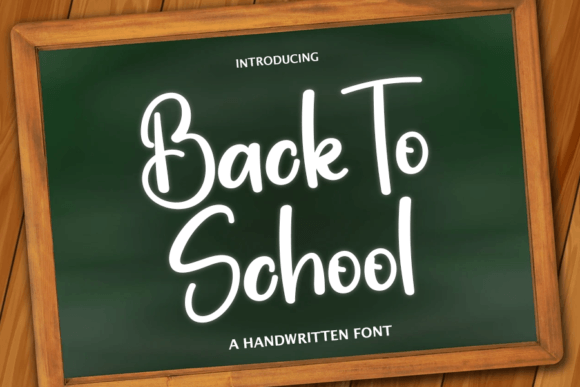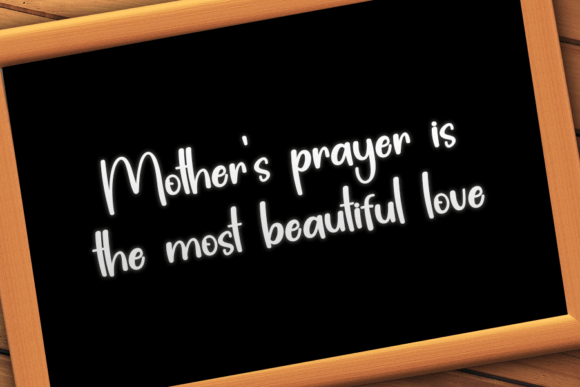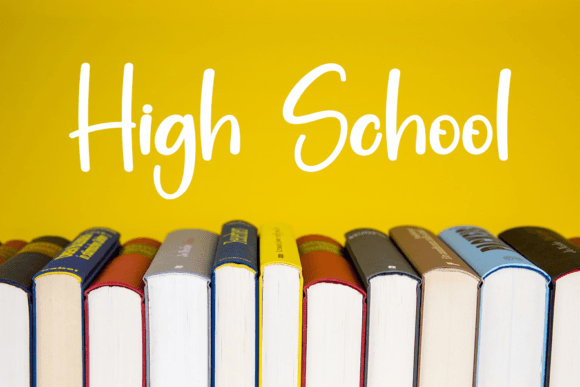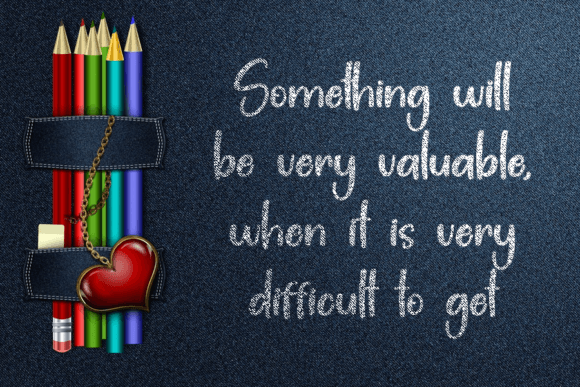
Back to School Font
About Back to School Font
Back to School is a cool and modern handwritten font. Whether you’re using it for crafts, digital design, presentations, or making greeting cards, this font has the potential to become your favorite go-to font, no matter the occasion!